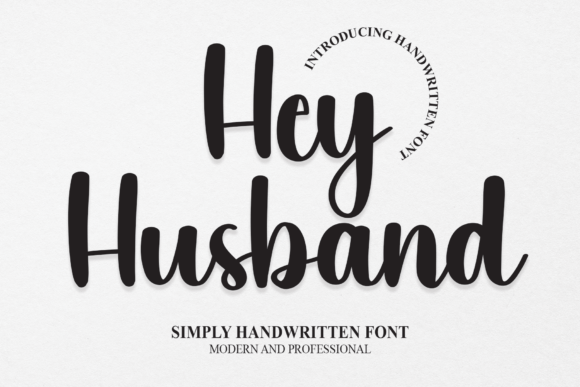
**Introducing Hey Husband: The Ultimate Font for Signature Style**
Awaken your creative spirit with Hey Husband, a striking script font that will effortlessly elevate your designs to new heights.
Immerse yourself in the world of elegant signatures, charming invitations, and captivating social media posts. With Hey Husband, every stroke and flourish becomes a testament to your refined style.
**A Masterpiece Inspired by Handwritten Charm**
Hey Husband is meticulously crafted to embody the beauty and authenticity of handwritten letters. Its graceful curves and enchanting flourishes will lend a touch of personal magic to your projects.
**Unleash Your Creativity with Limitless Applications**
Let the versatility of Hey Husband inspire your imagination. From stunning wall displays to eye-catching logos, from invitations that leave a lasting impression to product designs that whisper a tale, the possibilities are endless.
**Elevate Your Branding with Distinctive Style**
Craft a brand identity that stands out from the crowd with Hey Husband. Its signature style effortlessly enhances packaging, labels, and photography, creating a cohesive and unforgettable brand experience.
**Perfect for Social Media, Photography, and Watermarks**
Make a bold statement on social media, add a touch of elegance to your photography, and protect your creations with watermarks that exude artistry. Hey Husband seamlessly adapts to each application, bringing your vision to life with undeniable flair.
**Endless Possibilities for Invitations and Stationery**
Compose invitations and stationery that evoke a sense of occasion. Hey Husband's exquisite lettering will transform your special moments into cherished memories.
**Immerse Yourself in a World of Creativity**
Join the legion of creatives who have embraced Hey Husband's magic. Let its handwritten charm ignite your imagination and elevate your designs to the realm of the extraordinary.